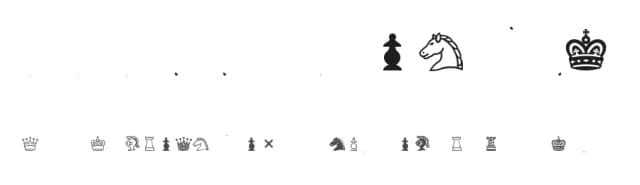
About Chess Lucena Font
Chess Lucena is a dingbat font designed by Armando Hernandez Marroquin. It includes 107 glyphs, a regular weight, and TTF (TrueType) format. Chess Lucena is free to download; check the license details on this page before commercial use. Dingbat fonts like Chess Lucena work best for icons, ornaments, bullet points, and decorative accents.
Chess Lucena Font is a versatile dingbats font that works for both headings and body text. Pair it with a contrasting sans-serif or serif font to add visual interest and a clear distinction between titles and body copy.
Chess Lucena Font
by Armando Hernandez Marroquin
Chess Lucena Font is a dingbats typeface by Armando Hernandez Marroquin, ideal for logos, invitations, branding, and creative projects.